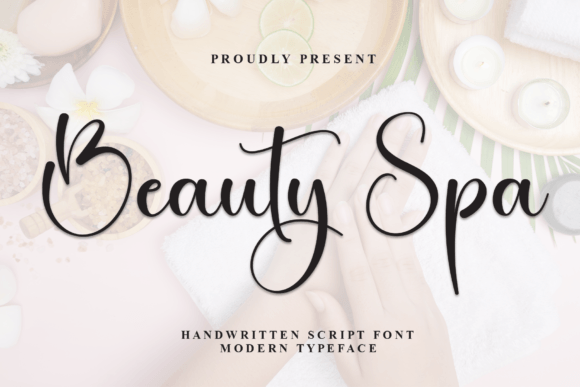
Beauty Spa Font: Elevate Your Designs with Elegance and Sophistication
The world of typography is vast and diverse, with numerous font styles to choose from, each with its unique character and charm. For those seeking a font that exudes elegance, sophistication, and a touch of modernity, the Beauty Spa font is an excellent choice. This exquisite handwritten font is designed to become a true favorite among designers, and for good reason. In this article, we’ll explore the Beauty Spa font, its features, and how it can elevate your designs to new heights.
What Makes Beauty Spa Font Stand Out?
Beauty Spa is a masterfully designed handwritten font that strikes the perfect balance between classy calligraphic influences and contemporary freshness. Its unique blend of traditional and modern elements makes it an versatile choice for various design projects. Here are some key features that set Beauty Spa font apart:
- Exquisite Handwritten Style: Beauty Spa font boasts a beautiful, handwritten aesthetic that adds a personal touch to any design.
- Classy Calligraphic Influences: The font’s calligraphic roots give it an air of sophistication and elegance, perfect for high-end designs.
- Contemporary and Fresh: Despite its classic influences, Beauty Spa font feels modern and fresh, making it suitable for a wide range of applications.
Perfect for Various Design Projects
Beauty Spa font is an excellent choice for various design projects, including:
- Logos and Branding: The font’s unique blend of elegance and modernity makes it perfect for logos and branding materials that require a touch of sophistication.
- Wedding and Event Designs: Beauty Spa font is ideal for wedding invitations, event posters, and other designs that require a romantic and elegant feel.
- Packaging and Product Design: The font’s versatility makes it suitable for packaging and product design, adding a touch of luxury and sophistication to any product.
- Advertising and Marketing Materials: Beauty Spa font can be used to create eye-catching advertising and marketing materials, such as brochures, flyers, and social media graphics.
Tips for Using Beauty Spa Font Effectively
To get the most out of Beauty Spa font, here are some typography tips to keep in mind:
- Pair with Neutral Backgrounds: Beauty Spa font shines when paired with neutral backgrounds, allowing its elegant curves and lines to take center stage.
- Experiment with Font Sizes: The font’s versatility allows it to be used at various font sizes, from large headings to smaller body text.
- Play with Color: Beauty Spa font looks stunning in a range of colors, from soft pastels to rich jewel tones.
Draw Inspiration from Beauty Spa Font
Beauty Spa font is more than just a typography choice – it’s a design inspiration. Its unique blend of elegance and modernity can inspire a wide range of creative projects, from fashion and beauty designs to lifestyle and wellness branding.
Imagine using Beauty Spa font to create:
- Fashion Brand Logos: The font’s sophisticated aesthetic makes it perfect for fashion brand logos that require a touch of luxury.
- Beauty Product Packaging: Beauty Spa font can add a touch of elegance to beauty product packaging, making it stand out on store shelves.
- Lifestyle and Wellness Branding: The font’s fresh and modern feel makes it suitable for lifestyle and wellness branding, including yoga studios, spas, and health food stores.
Beauty Spa Font Details
Here are some key details about Beauty Spa font:
- Font Type: Handwritten
- Font Style: Script
- Characters: Includes uppercase and lowercase letters, numbers, and punctuation marks
In conclusion, Beauty Spa font is an exquisite handwritten font that offers a unique blend of elegance, sophistication, and modernity. Its versatility makes it suitable for various design projects, from logos and branding to packaging and advertising materials. With its beautiful curves and lines, Beauty Spa font is sure to elevate your designs to new heights. So why not give it a try and experience the beauty of typography for yourself?